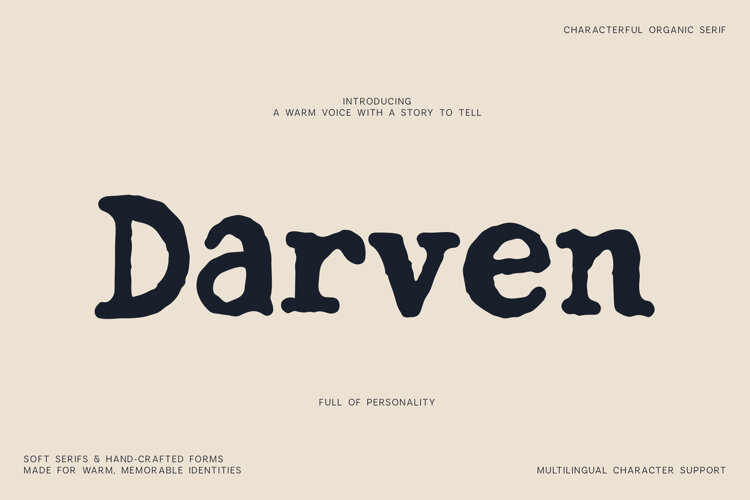
Give your designs a warmer, more distinctive character with Darven, a handmade organic serif font filled with softly irregular details and expressive personality.
Darven combines classic serif foundations with handcrafted shapes, creating typography that feels approachable, memorable and naturally expressive.
Its strong character makes it especially suitable for:
Darven is especially effective for brands that want to communicate craftsmanship, warmth and individuality while retaining a professional typographic foundation.